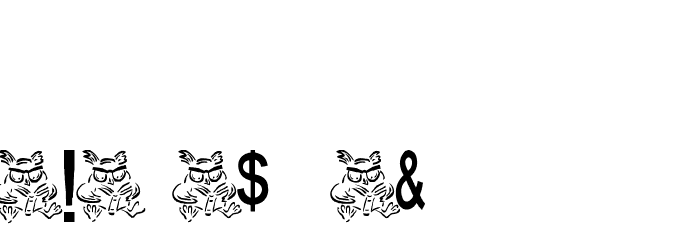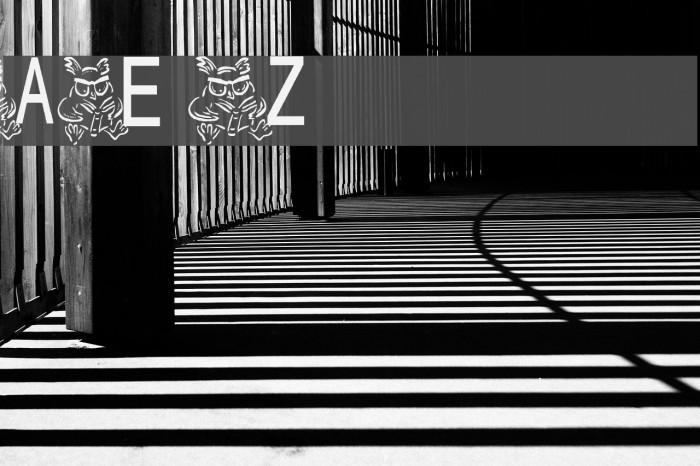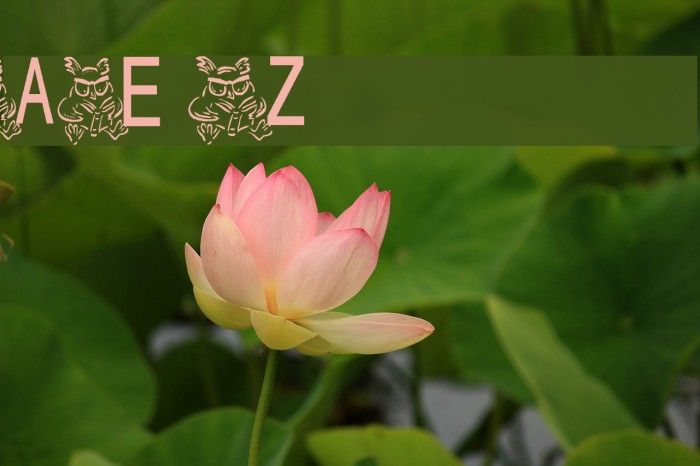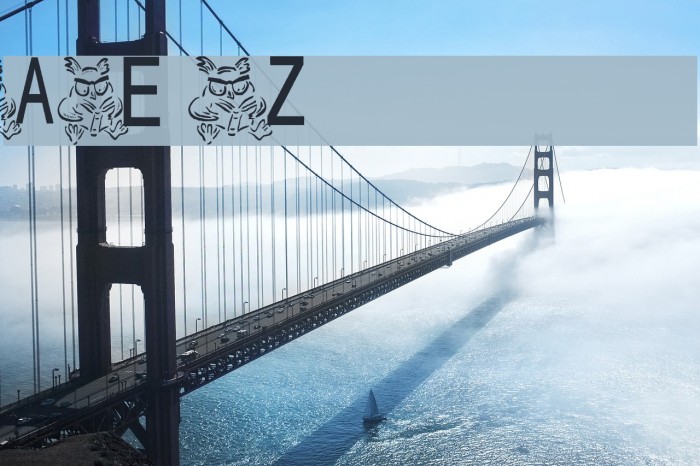
AEZ owlness Font
This font features a unique and playful design where each letter is accompanied by a detailed owl illustration. The letters are bold and sans-serif, providing a strong contrast to the intricate owl graphics. The combination of clean, modern typography with whimsical, decorative elements makes it stand out. The font is ideal for projects that require a touch of creativity and fun, such as children's books, playful branding, or themed event invitations. The owl motif adds a layer of charm and character, making it memorable and engaging.
A bold sans-serif font with whimsical owl illustrations accompanying each letter.
• Proposed Projects: Ideal for children's books, playful branding, themed invitations, and creative projects.
• Category: Decorative/Display
• Bold: Yes
• Italic: No
• Weight: Bold
• Width: Normal
• Character Spacing: Normal
• Contrast: High
• Overall Style: Decorative
• Use Case: Headlines, Logos, Creative projects